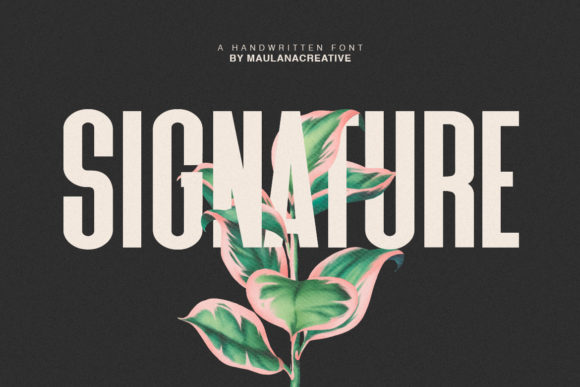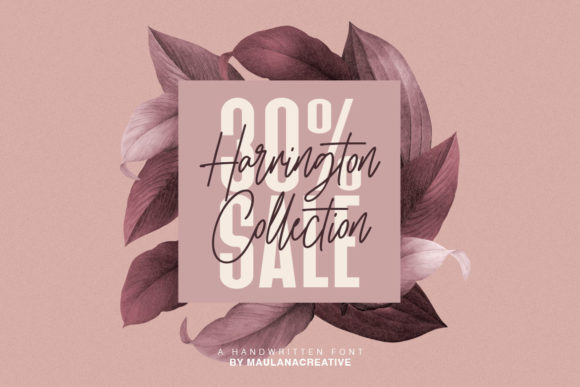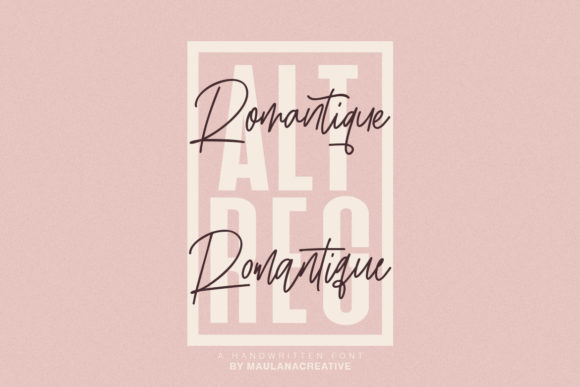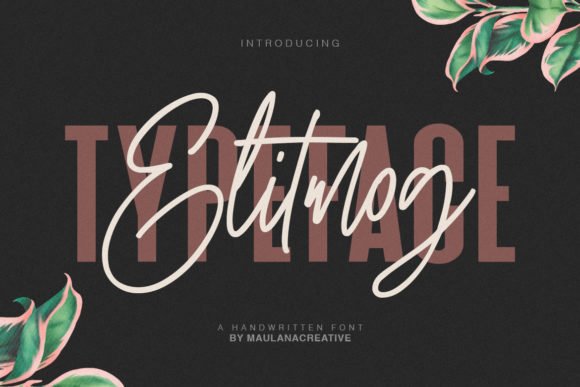
Introduction to Elitmog Font
Elitmog duo is a match made in heaven, the swashes of the script perfectly complement the sans serif’s style.
πŸ‘€ Author Maulana Creative
Combining these two fonts on your next design will give your next design a playful and authentic feel This versatility means that this font can be used in a wide variety of applications from branding, crafting, to digital projects- the only limit is your imagination.
Key Features of Elitmog Font
Why Choose Elitmog Font?
Elitmog Font offers exceptional quality and versatility, making it a valuable addition to your design toolkit. Whether you’re creating for personal projects or commercial use, Elitmog Font delivers professional results.